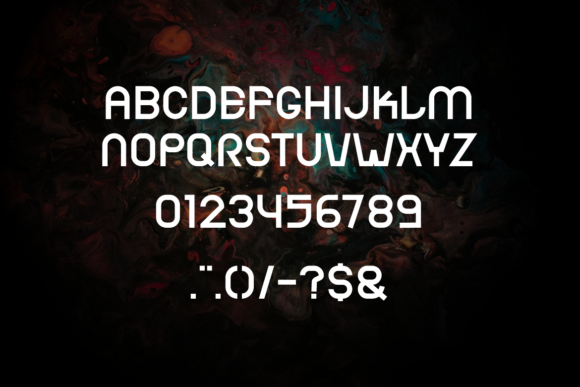
Introduction to Kelek Font
Kelek is a cool, bold and modern display font.
It is perfect for any branding project such as logos, t-shirt printing, creative products, or pretty much anything that could benefit from a futuristic vibe .
Key Features of Kelek Font